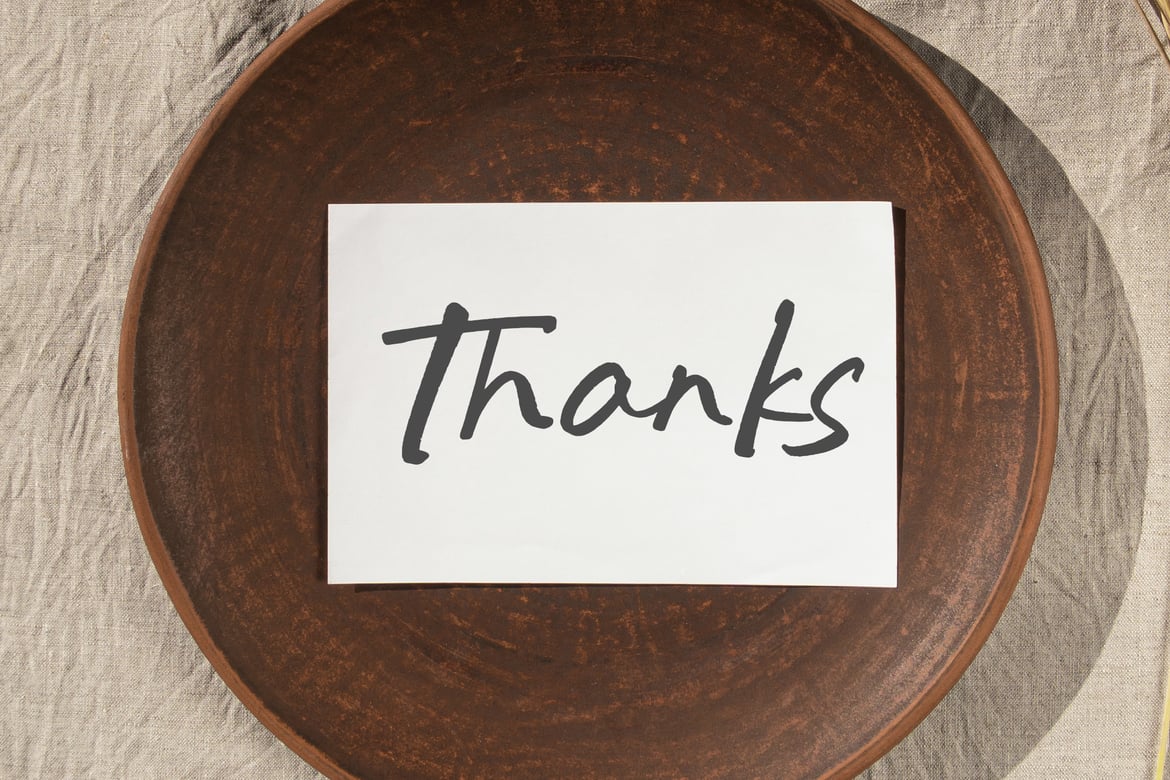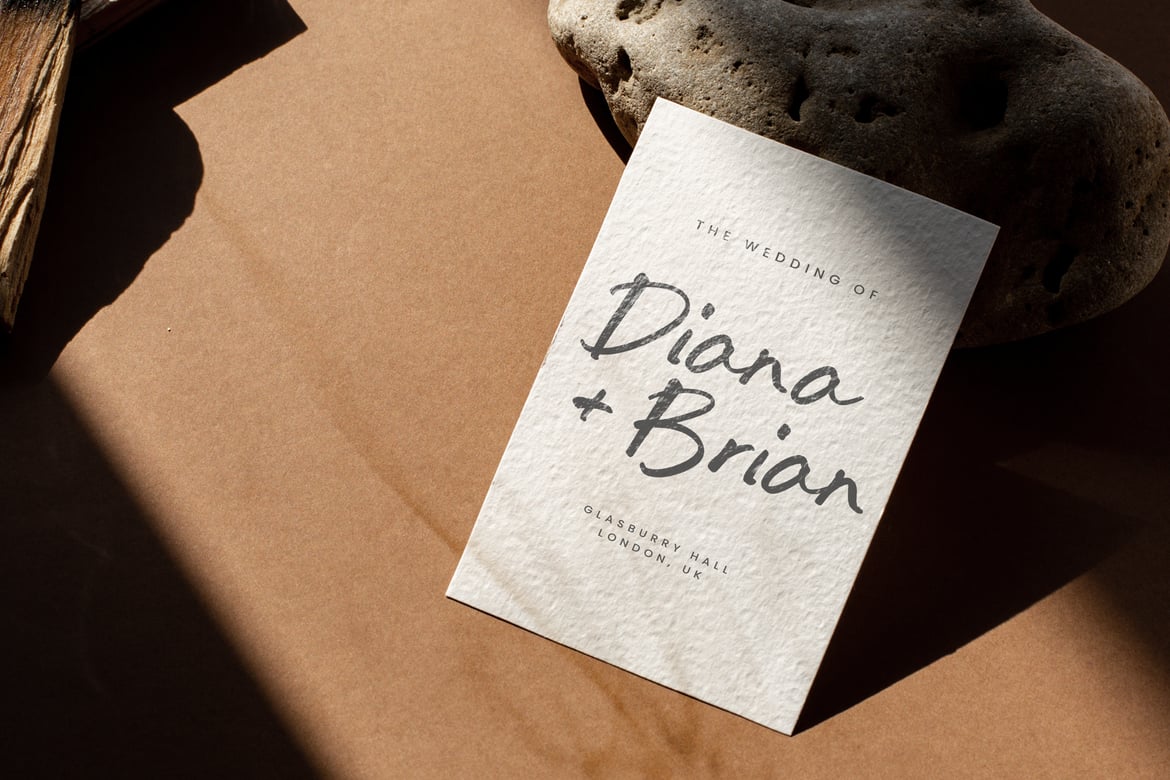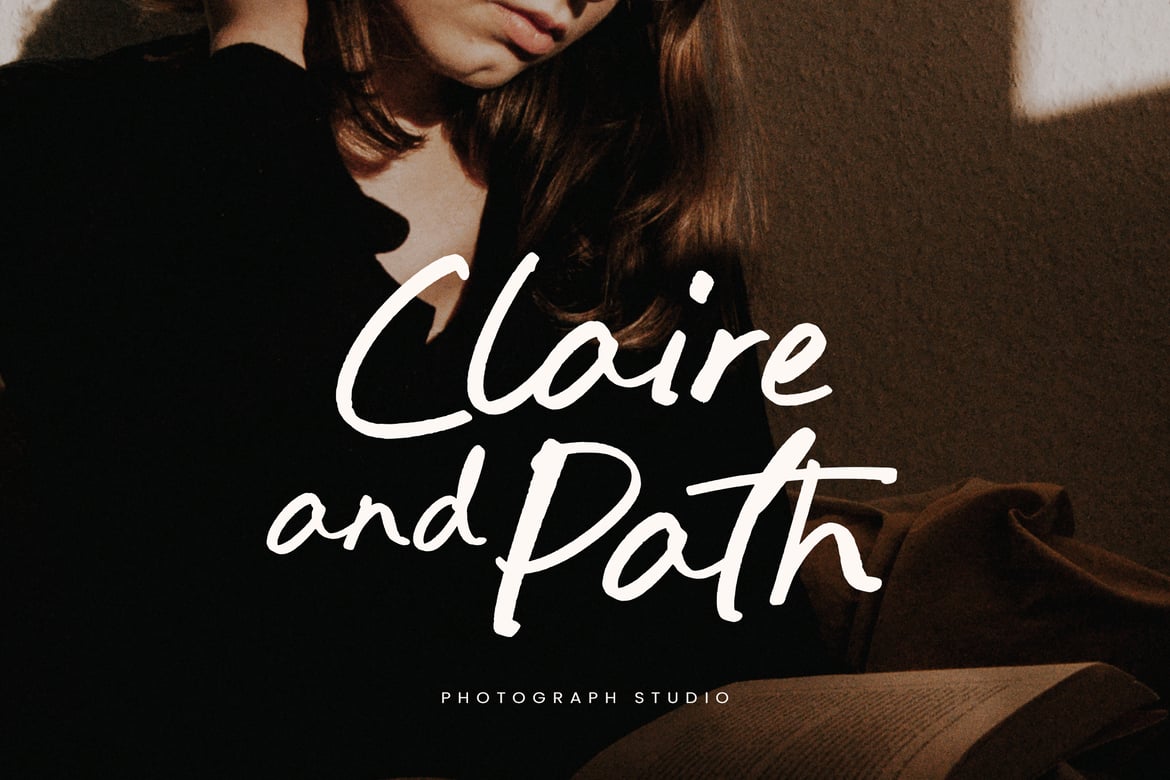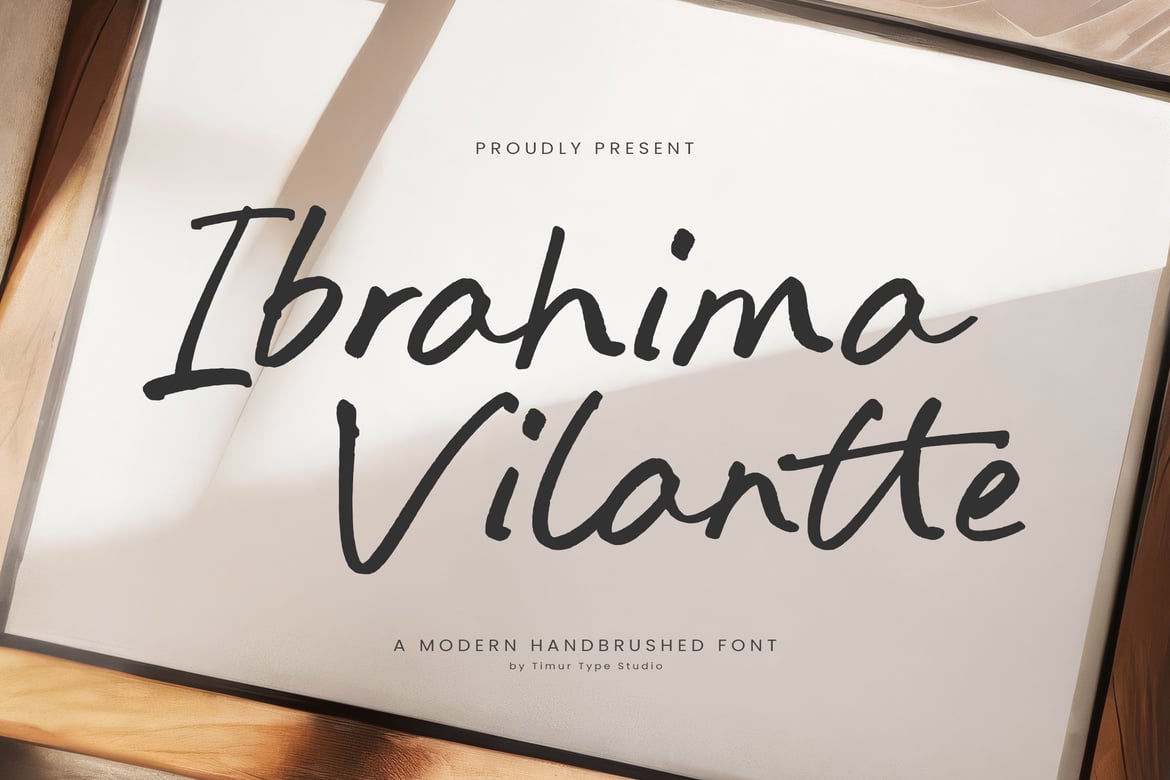
Ibrahima Vilantte – Modern Handbrushed Font TT
This font is a contemporary handbrushed font that embodies elegance and fluidity. Its organic strokes and artistic flair create a warm, inviting feel, making it perfect for a range of design projects, from branding to invitations. The unique combination of casual charm and sophistication ensures that Ibrahima Vilantte stands out while maintaining readability, adding a touch of creativity to any text.